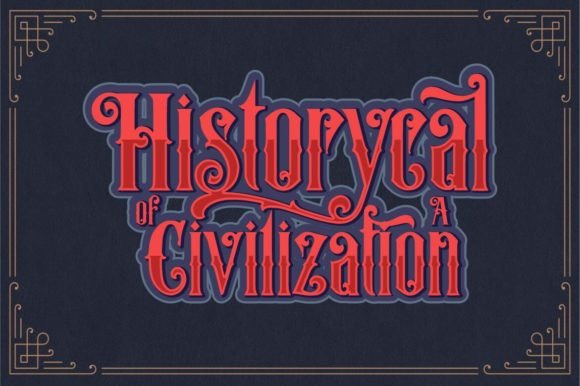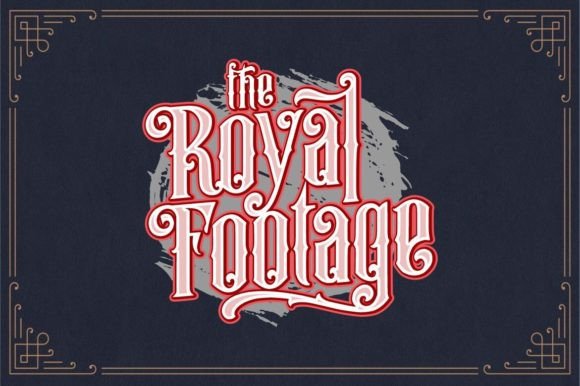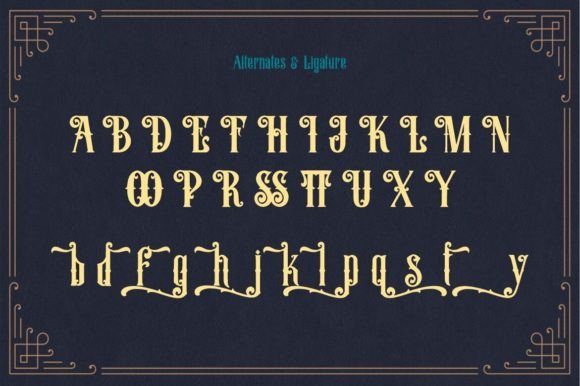
Anguish Font
Anguish Vintage Typeface is an amazingly unique blackletter font with a strong, classic and vintage vibe. Get inspired by its original feel and use it for vintage logo, tattoo designs, flyer, posters, book covers, albums and more!